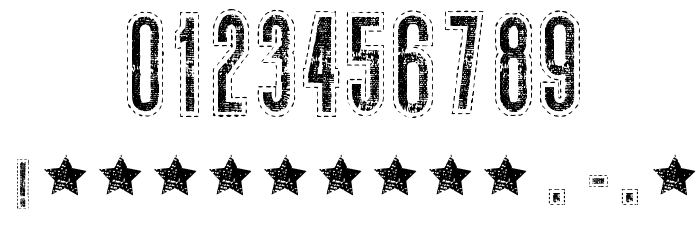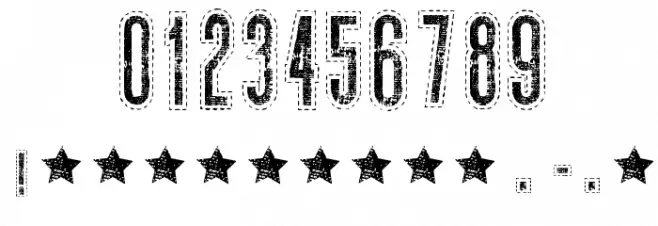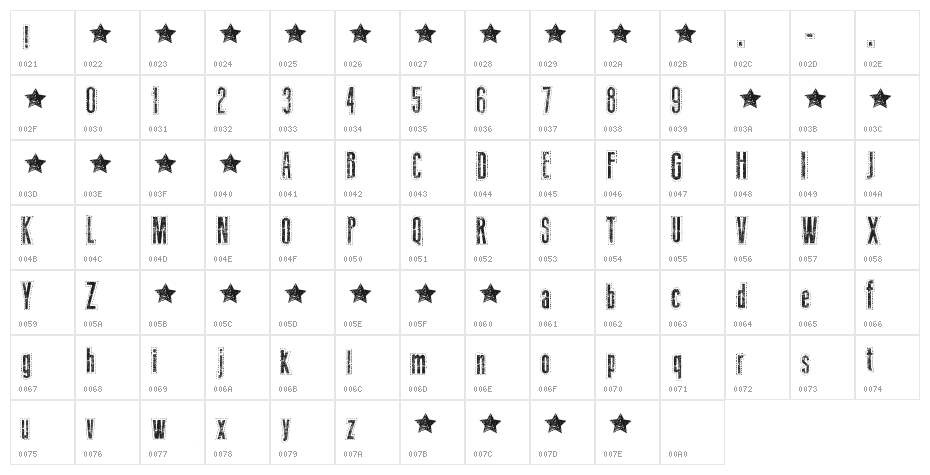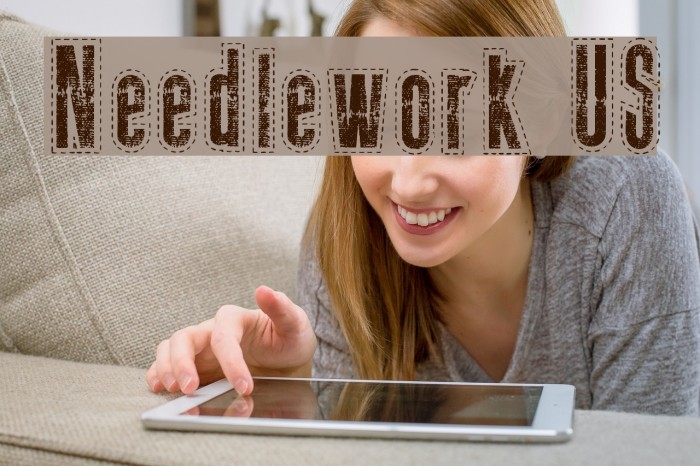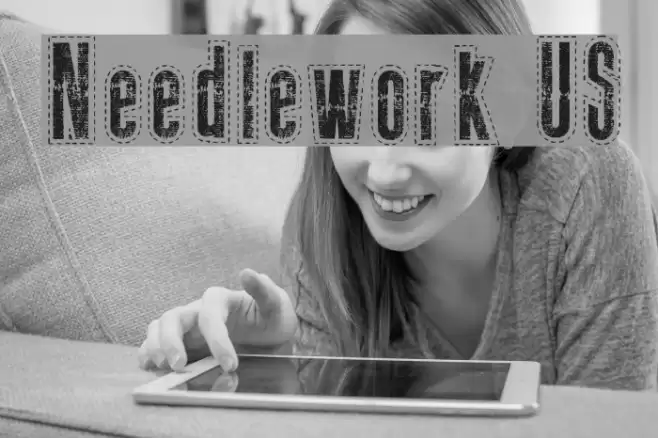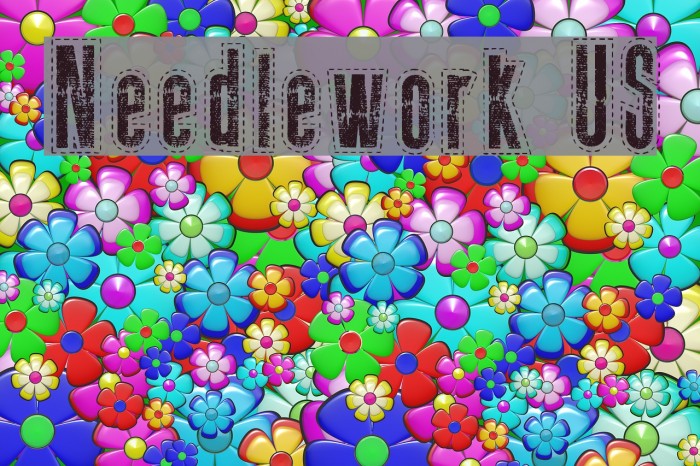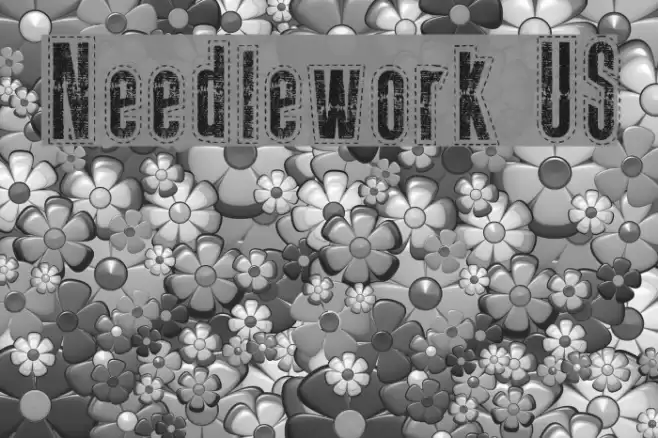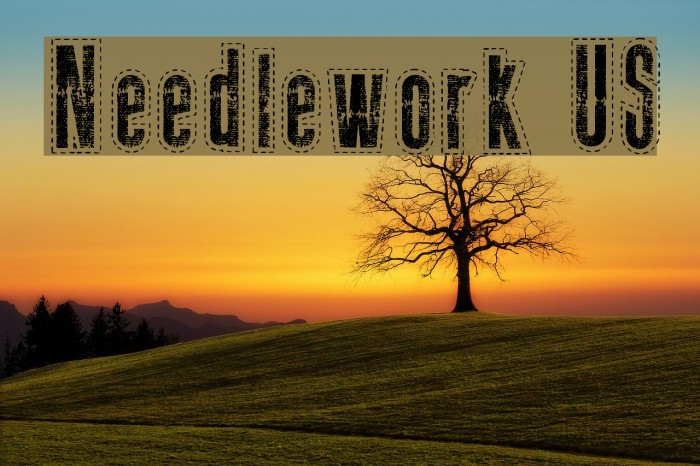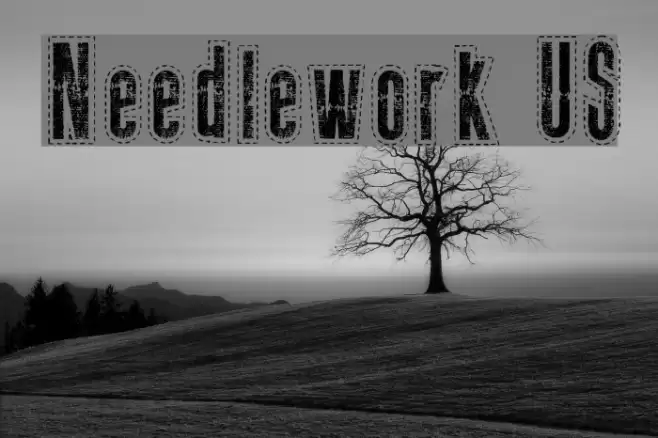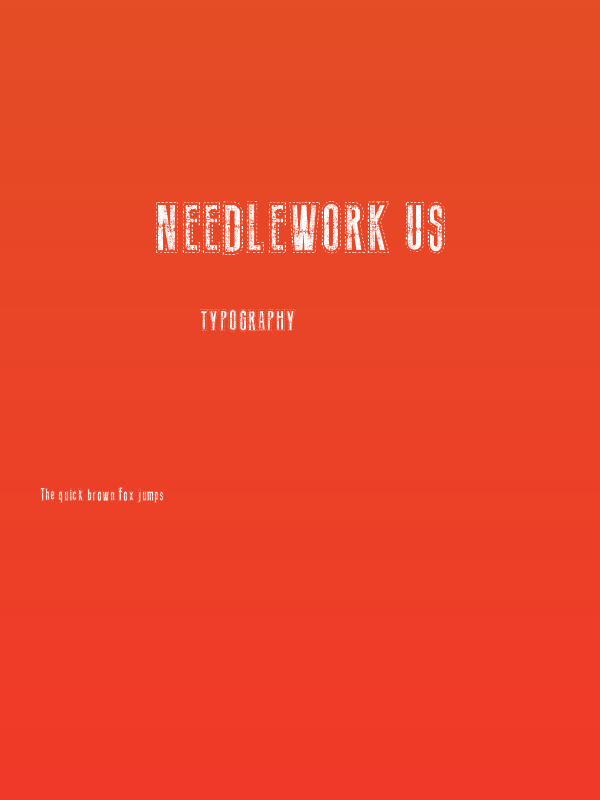
Needlework US Font
Needlework US Description
This font features a bold, decorative style with a distressed texture that gives it a vintage, handcrafted appearance. The uppercase and lowercase letters are consistent in their rugged design, with a bold presence that stands out. The numbers and special characters follow the same aesthetic, making the font cohesive across all characters. The dotted outline adds an extra layer of detail, enhancing its unique, stitched look. This font is ideal for projects that require a rustic or retro feel, such as posters, branding, or packaging designs.
| Proposed Projects | Ideal for vintage-themed posters, branding, packaging, and craft projects. |